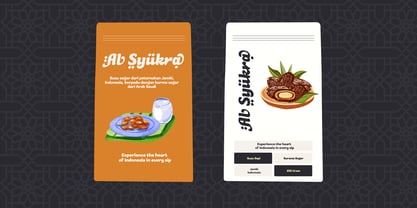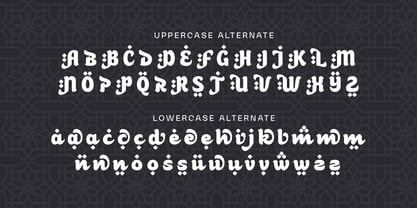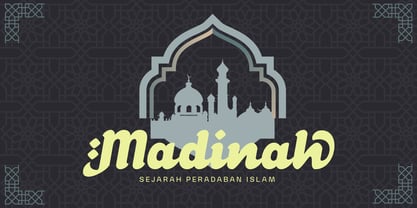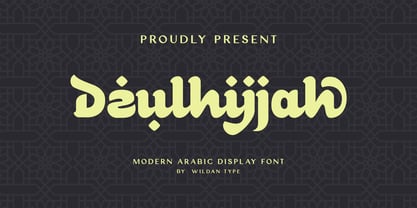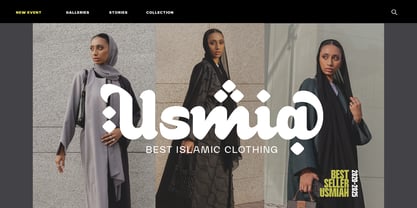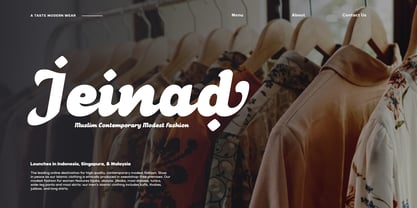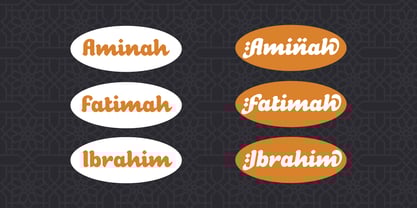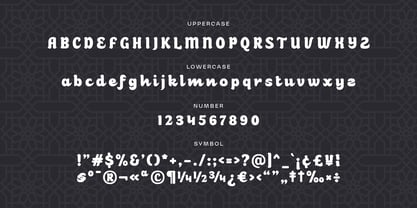
Dzulhijjah
Dzulhijjah is a modern Arabic font, with a warm, soft touch, but still displays luxury. This font is designed to bring a new freshness to your project. Its beautiful curves connected between characters evoke a beautiful, elegant and classy impression.
This font combines Arabic calligraphy with a touch of modern script and serif, presenting a classy font for use in various design needs.
Perfect for branding and high-end product packaging, especially Arabic and Islamic designs. Dzulhijjah will add aesthetics to your design to appear more premium and exclusive.